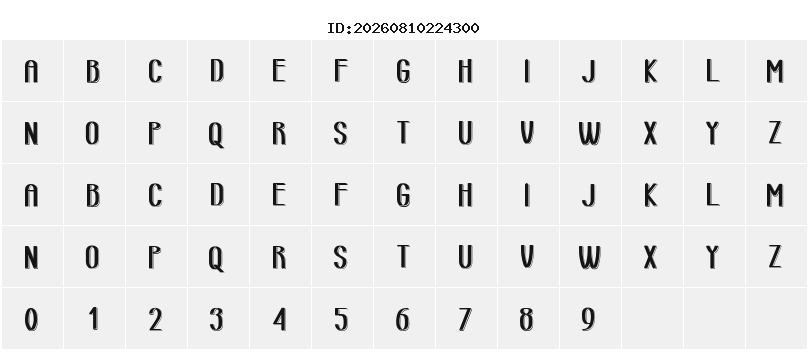
• Font Name: retro lined area_demo-version
• Full Font Name: retro lined area_demo-version
• Version: Version 1.00 February 25, 2012, initial release
• Designer: Fonts-lab.com
• Manufacturer: Fonts-lab.com
About retro lined area_demo-version.ttf
retro lined area_demo-version.ttf is a modern, elegant sans-serif font designed for ultimate readability and visual harmony. Perfect for branding, headlines, web design, and print materials.